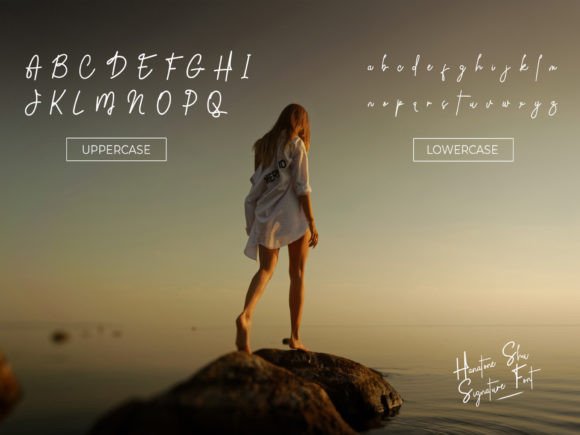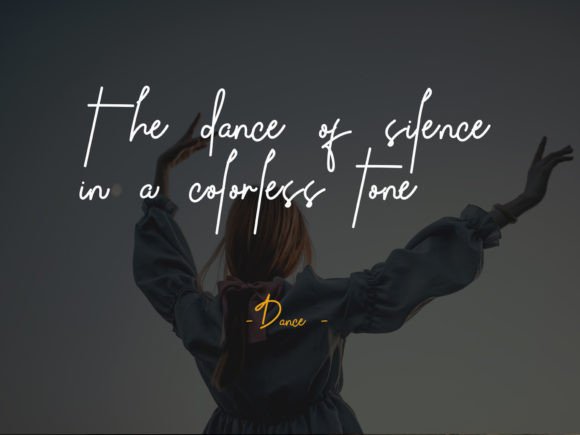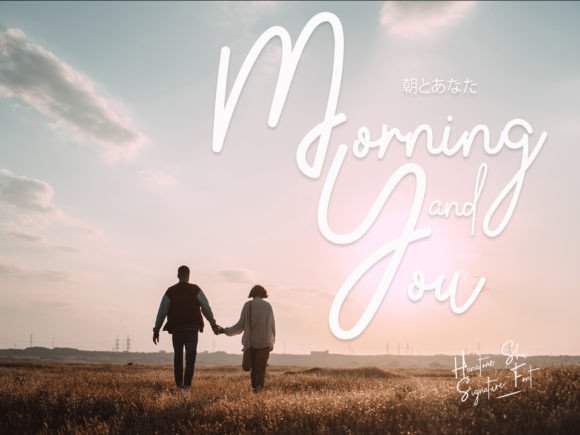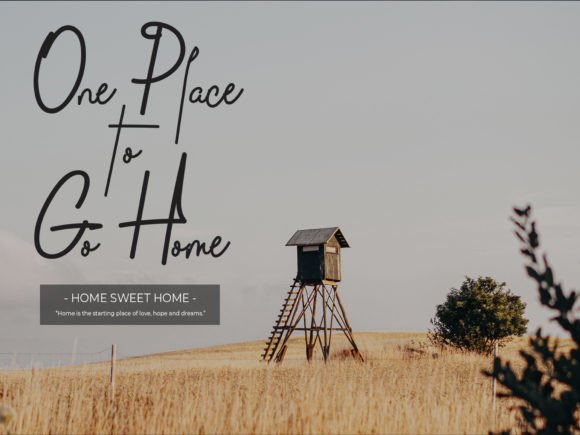
About Hanatone Shu Font
Hanatone Shu is a beautiful and light handwritten font with a unique feel and a stunning impact. It will add a luxury spark to any design project that you wish to create!